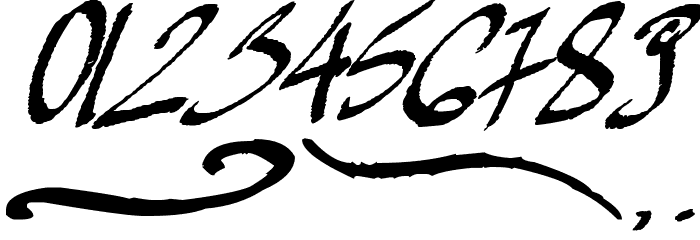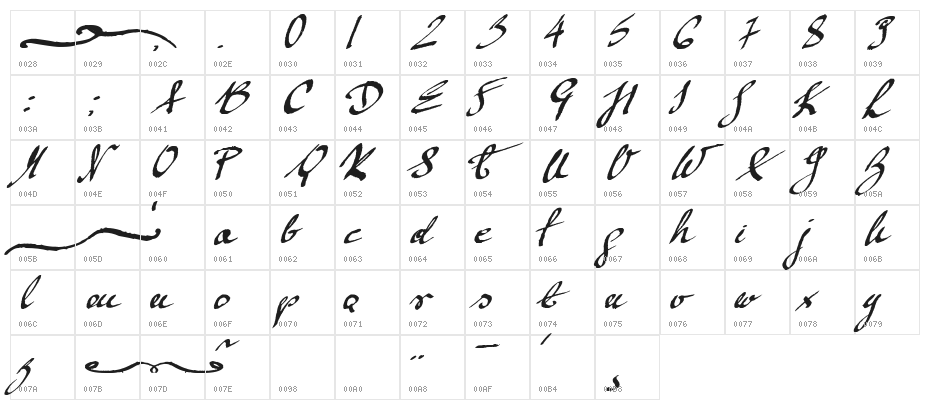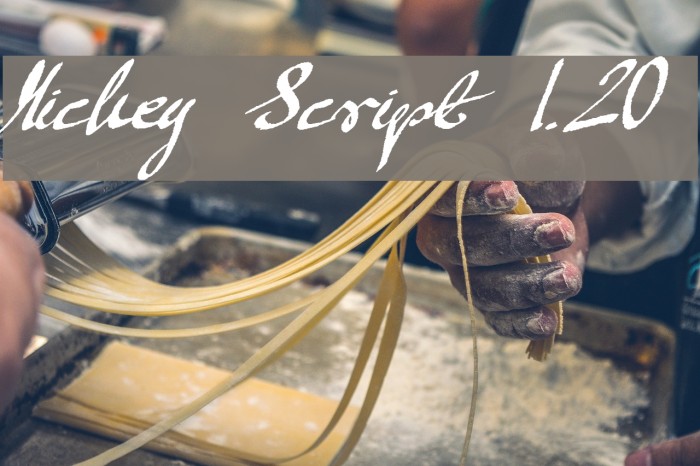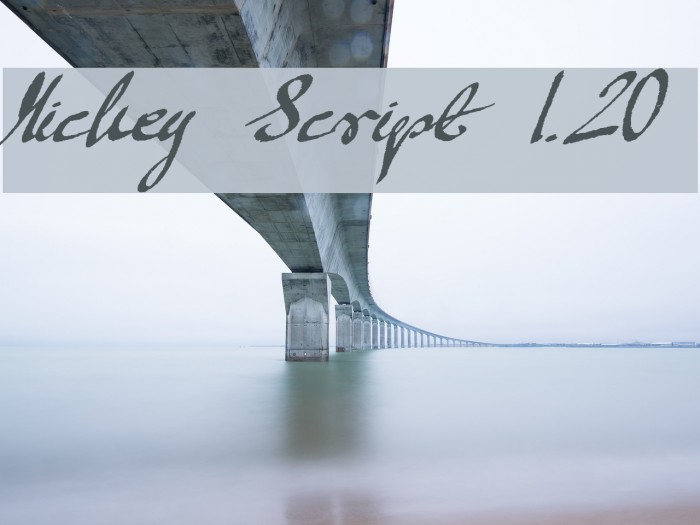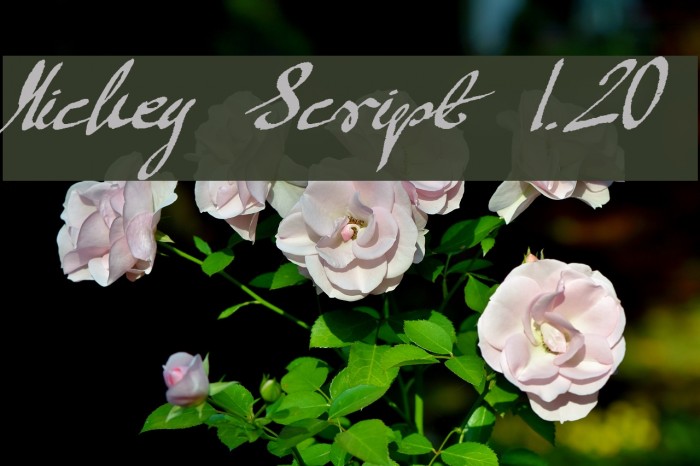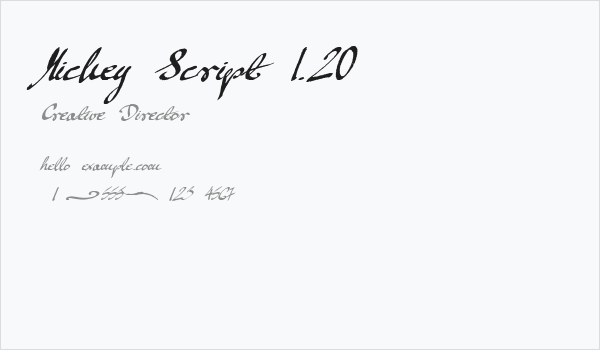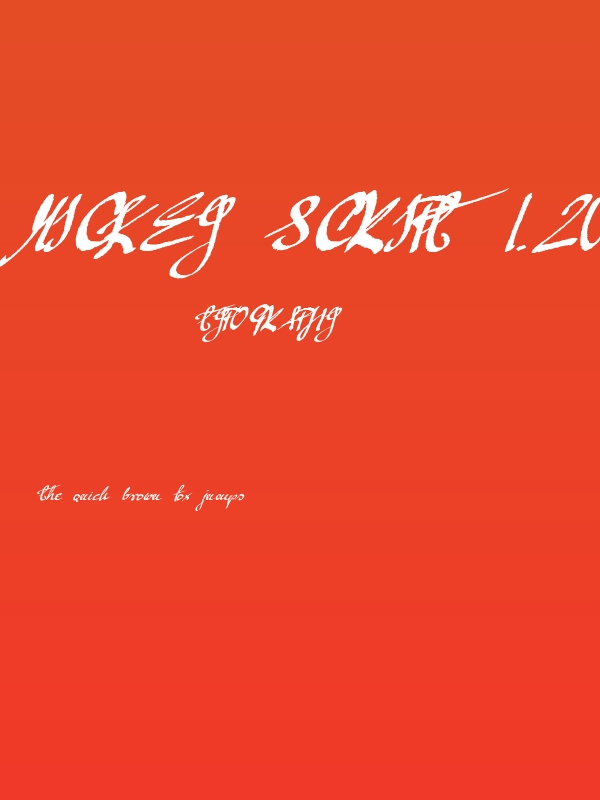
Mickey Script 1.20 Font
Mickey Script 1.20 Description
This font exhibits a dynamic and expressive script style, characterized by its fluid, cursive strokes and high contrast between thick and thin lines. The letters are interconnected, creating a sense of movement and elegance. The uppercase letters are bold and prominent, while the lowercase letters maintain a consistent flow, enhancing readability. The numbers and special characters follow the same stylistic approach, ensuring uniformity across all elements. This font's artistic flair makes it suitable for creative and decorative purposes.
| Use Case | Logos, Invitations, Decorative Text |
| Proposed Projects | Ideal for wedding invitations, greeting cards, logos, and branding materials that require a personal and artistic touch. |